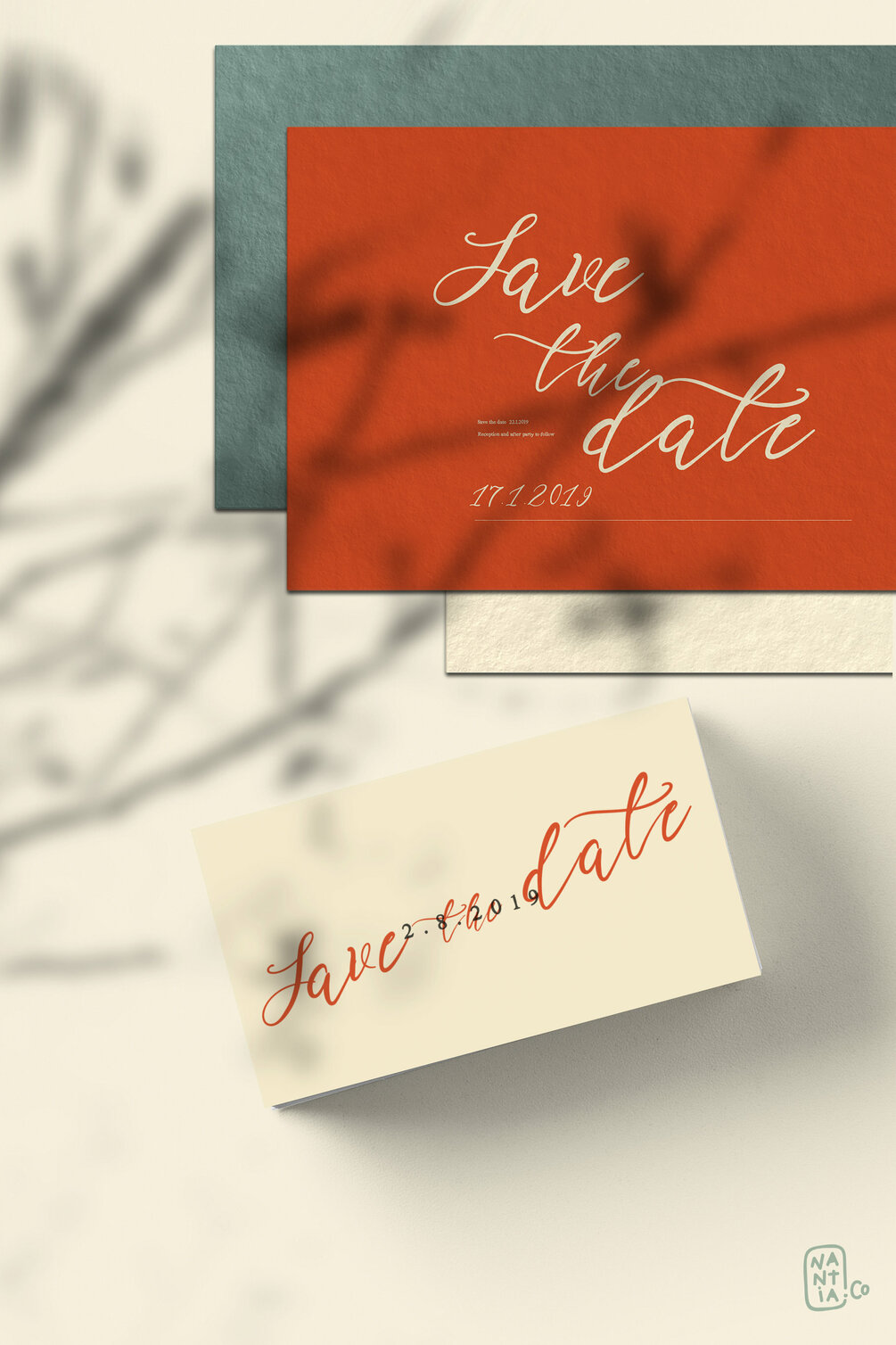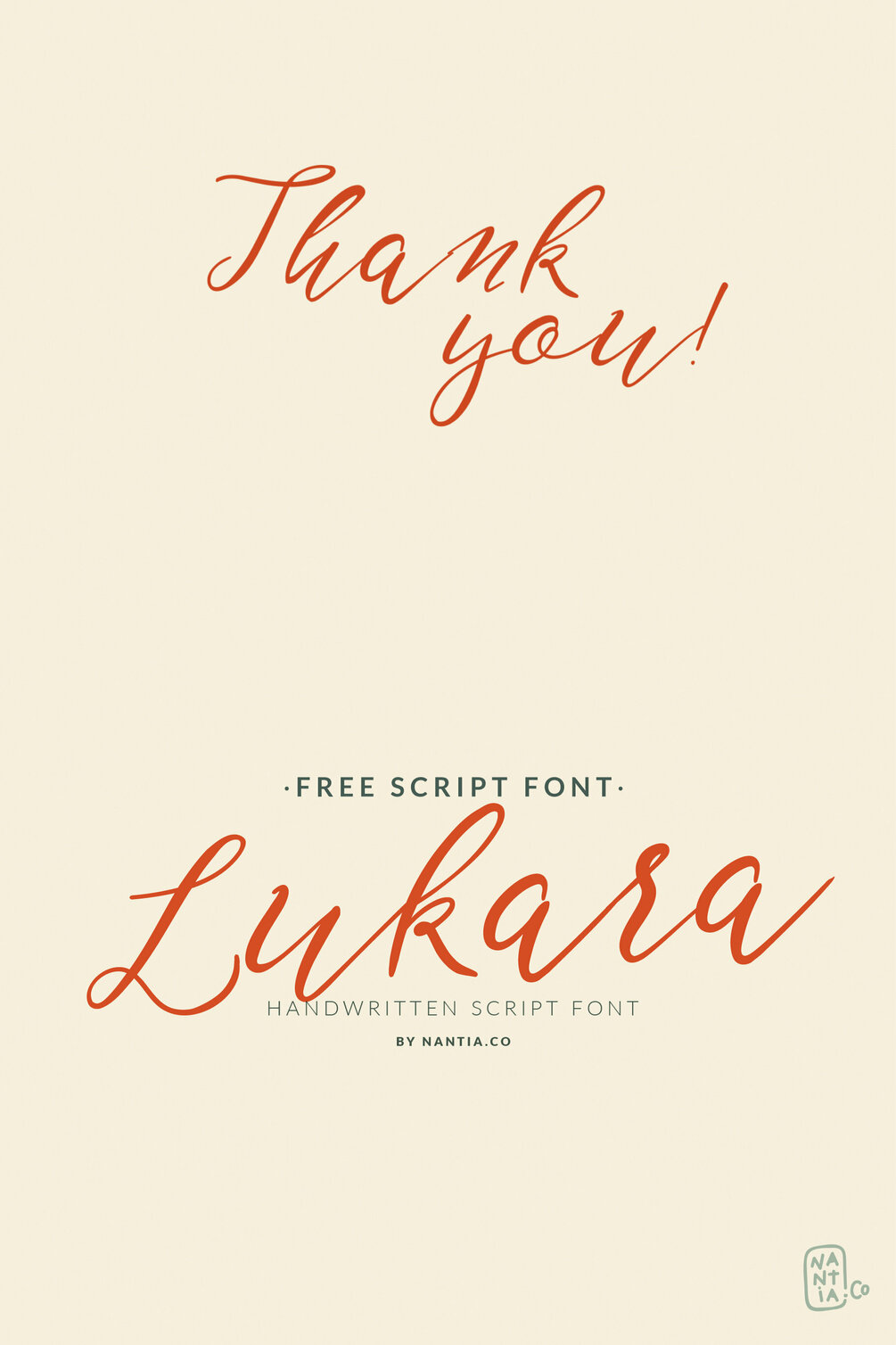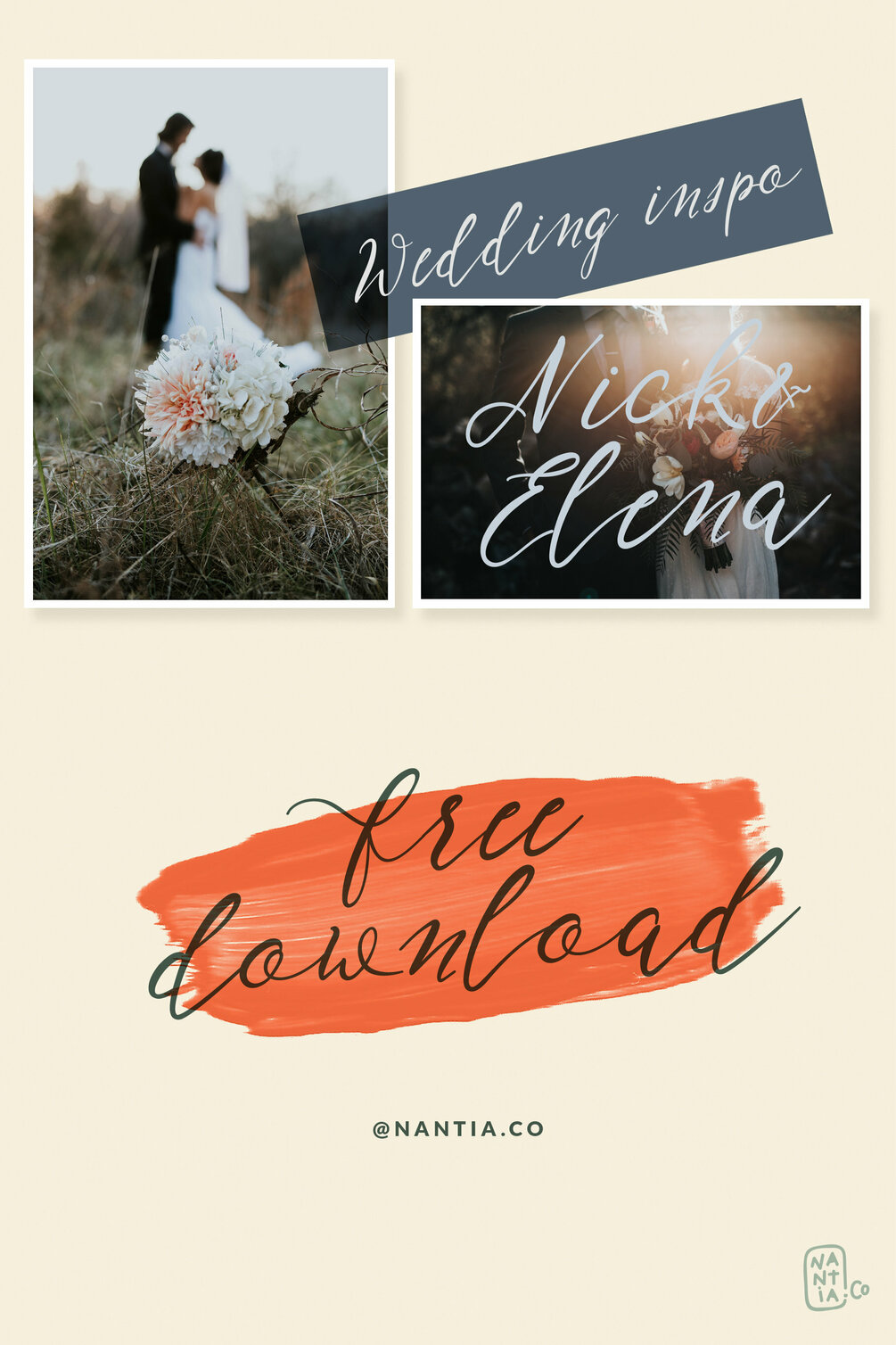
Lukara Script Font – Free Download
Lukara Script Font is a script decorative font with which you can achieve a handwritten-type lettering feeling. This font has a really nice flow so you use it in a large text if you want to give them a touch of personality. It can be used on social media content, for branding, wedding invitations or packaging.